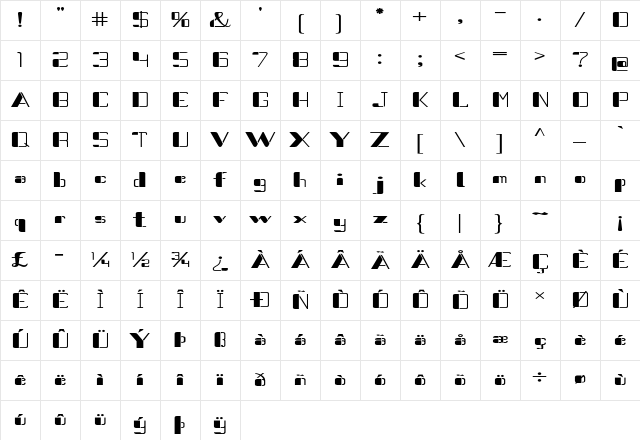
Electrico Expanded Bold Free Font
Electrico Expanded Bold
Style: Expanded Bold
Electrico Family
Design Context for Electrico
Electrico has a distinctly futuristic character, with geometric precision and clean angles that feel at home in technology, gaming, and sci-fi contexts. Its bold stroke weight gives it real presence on the page.